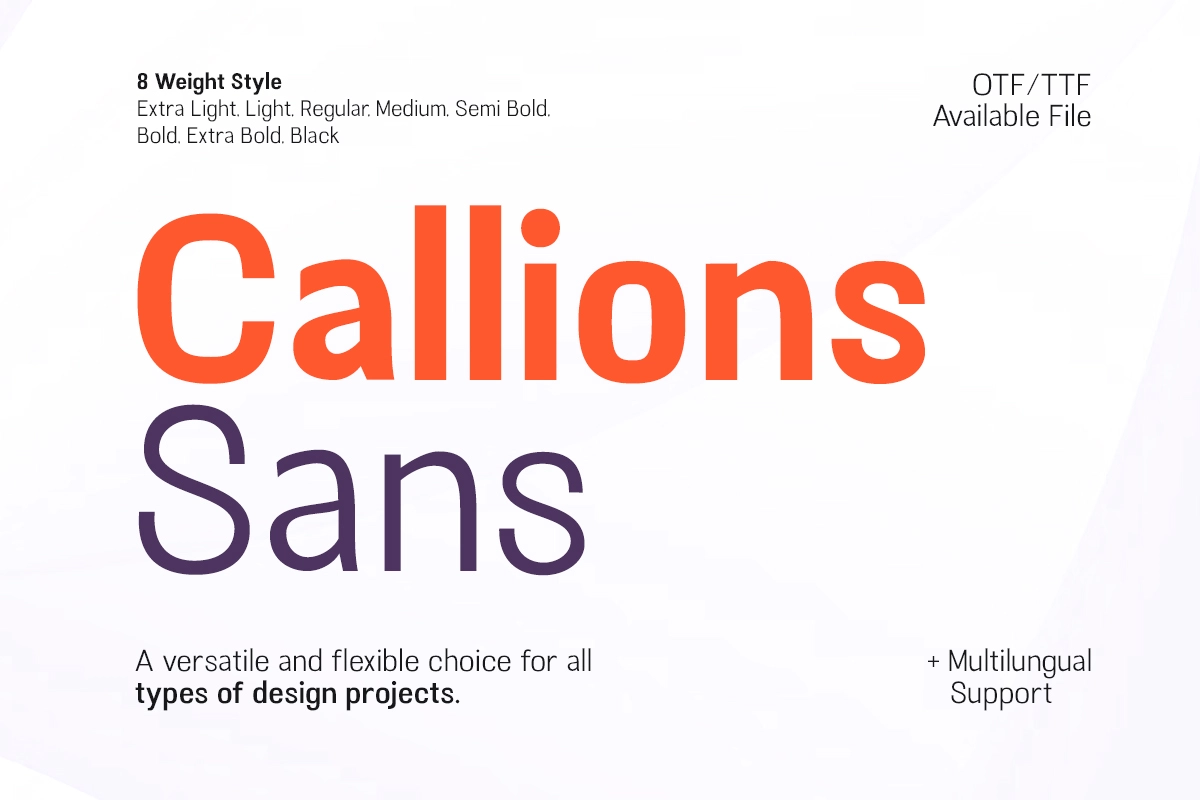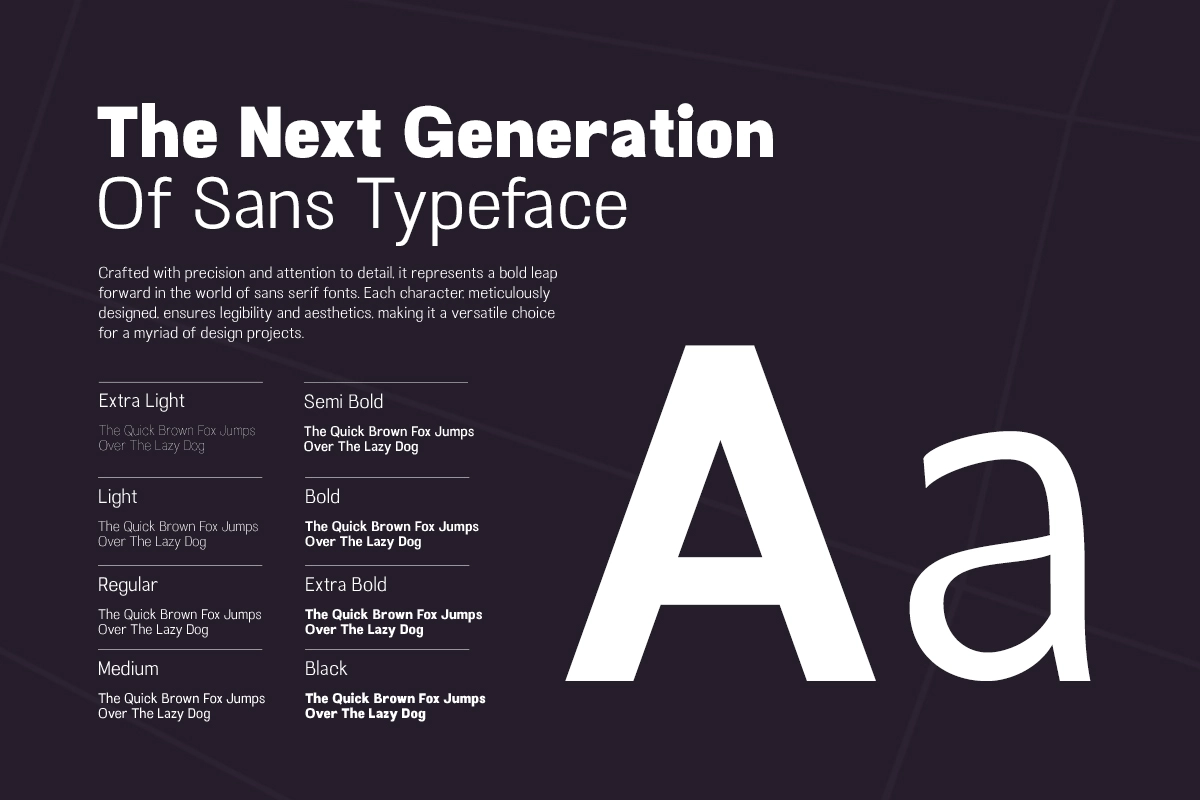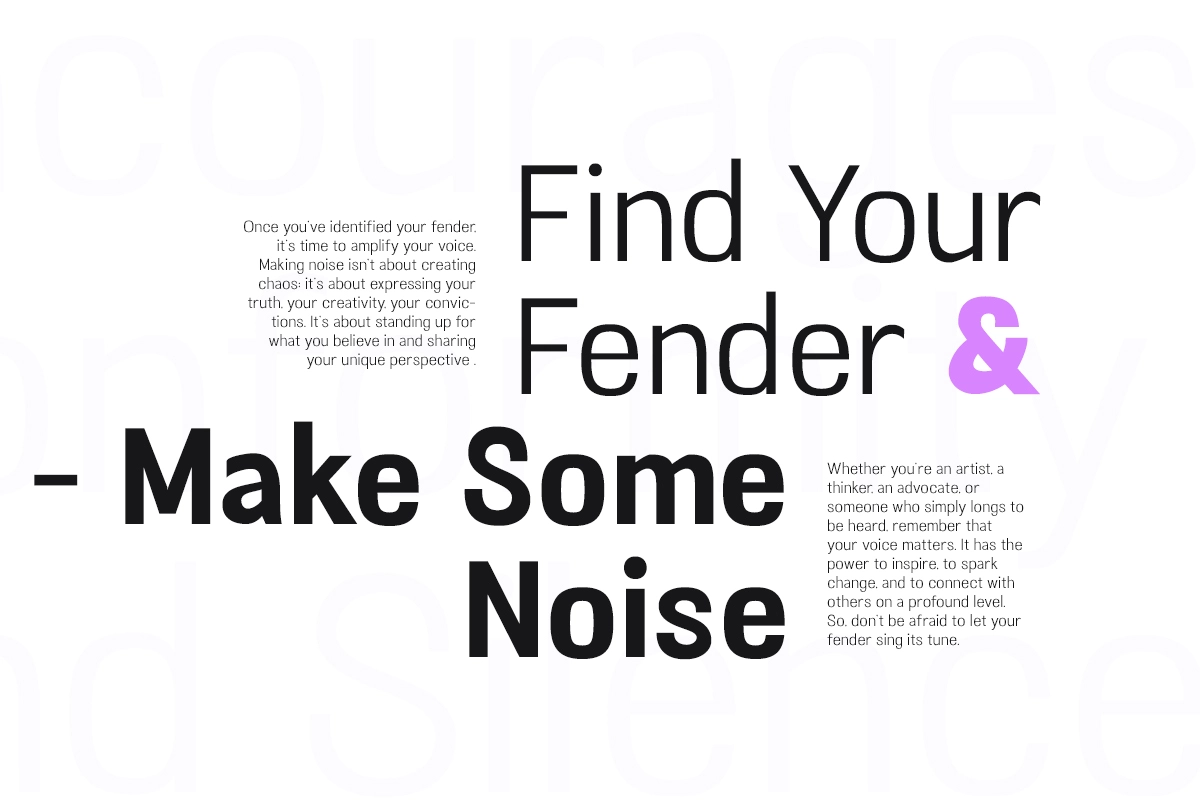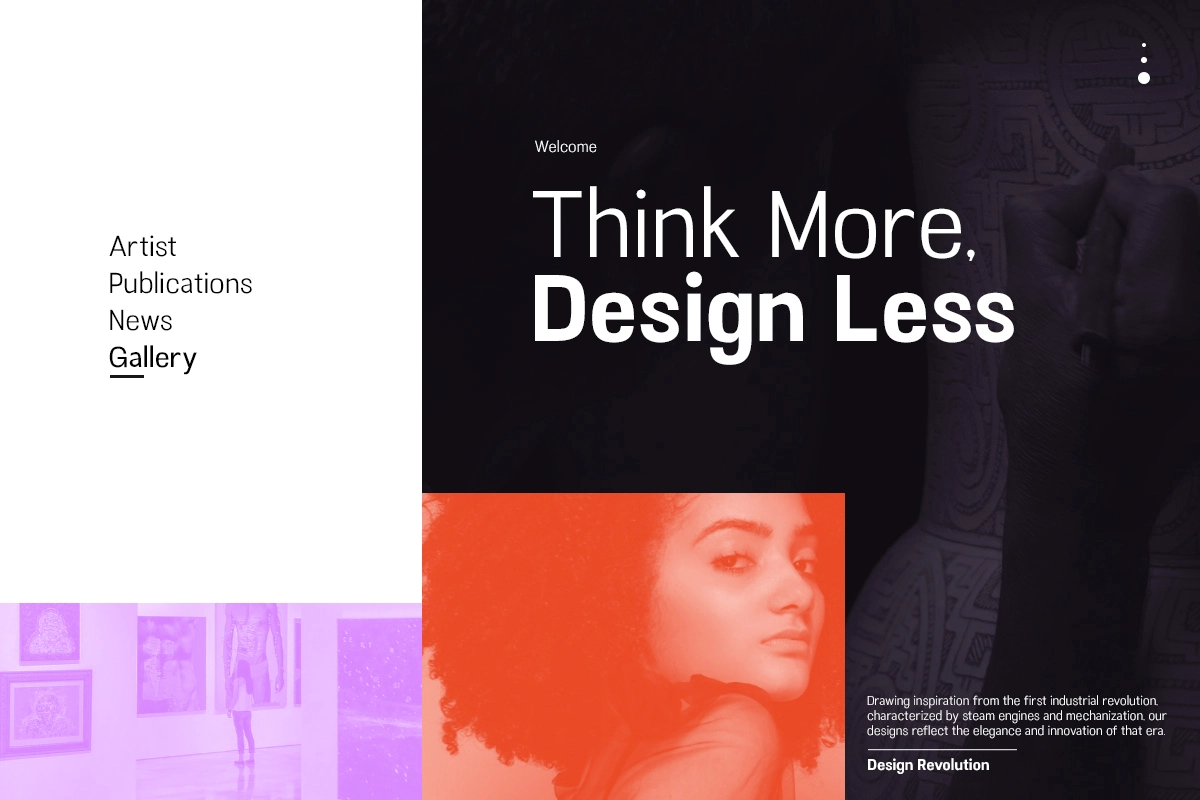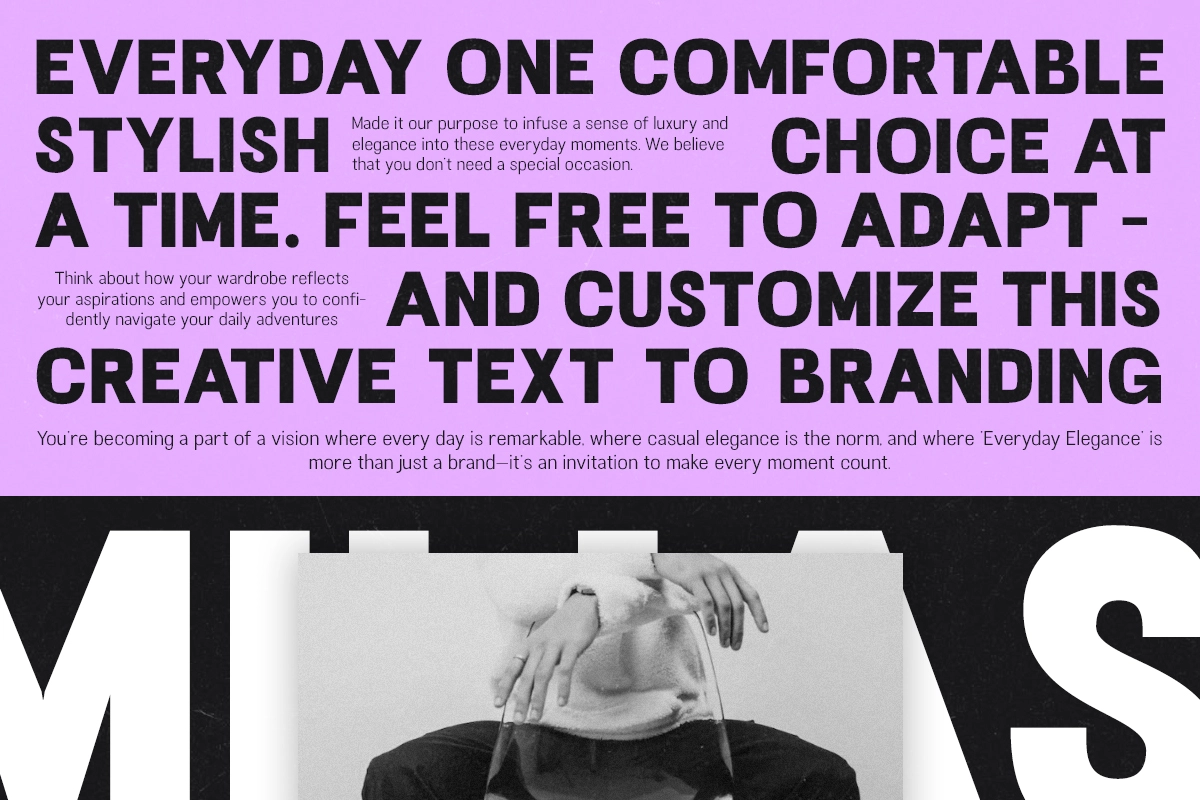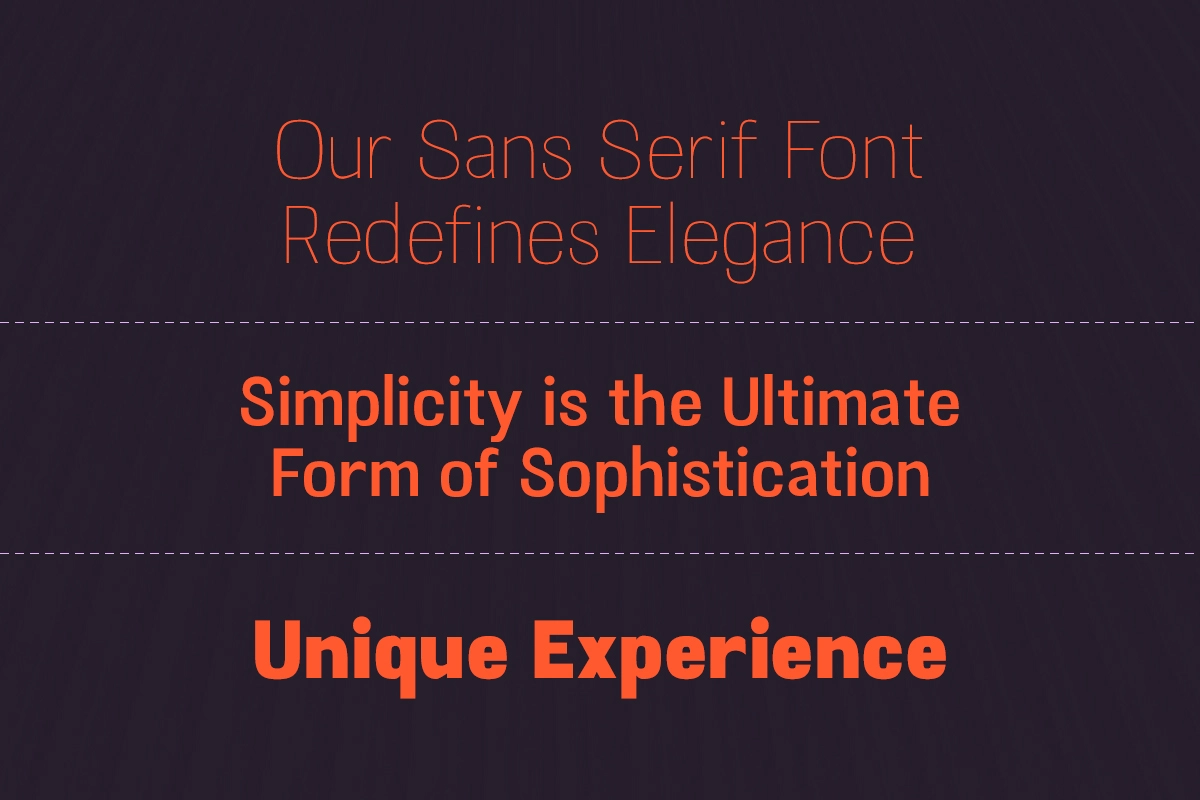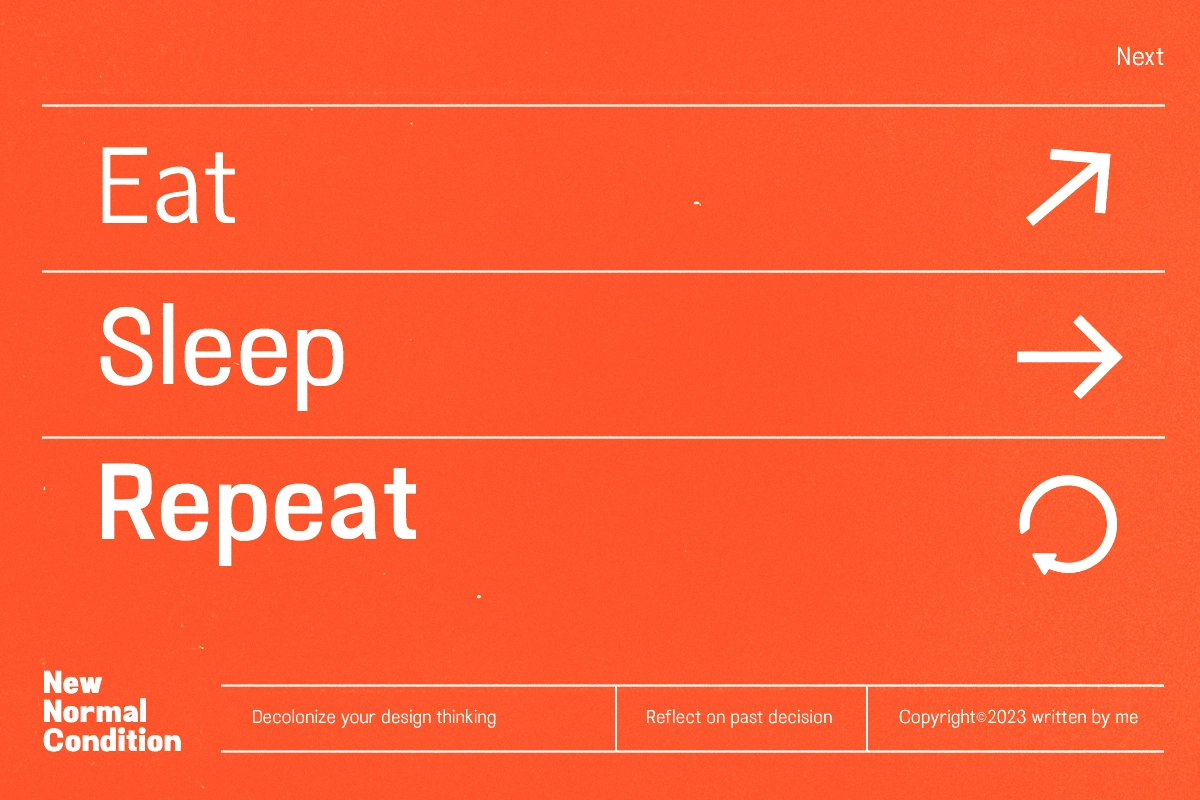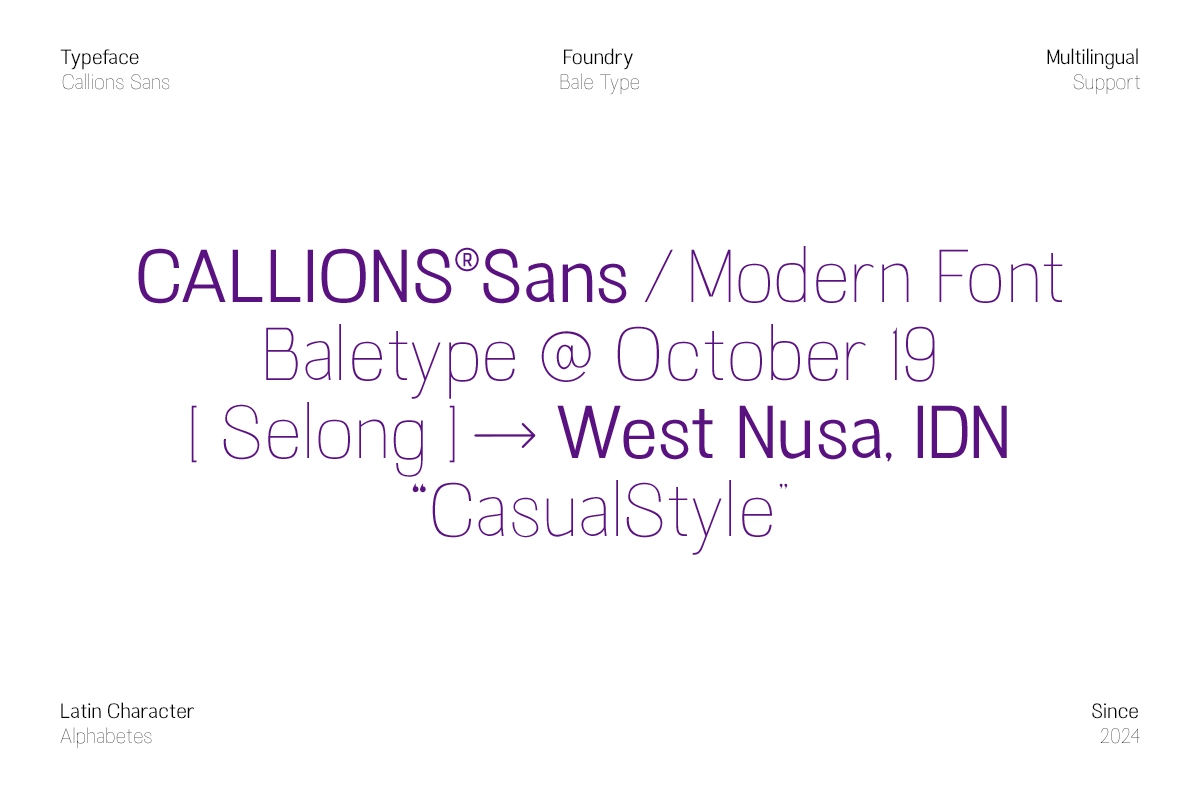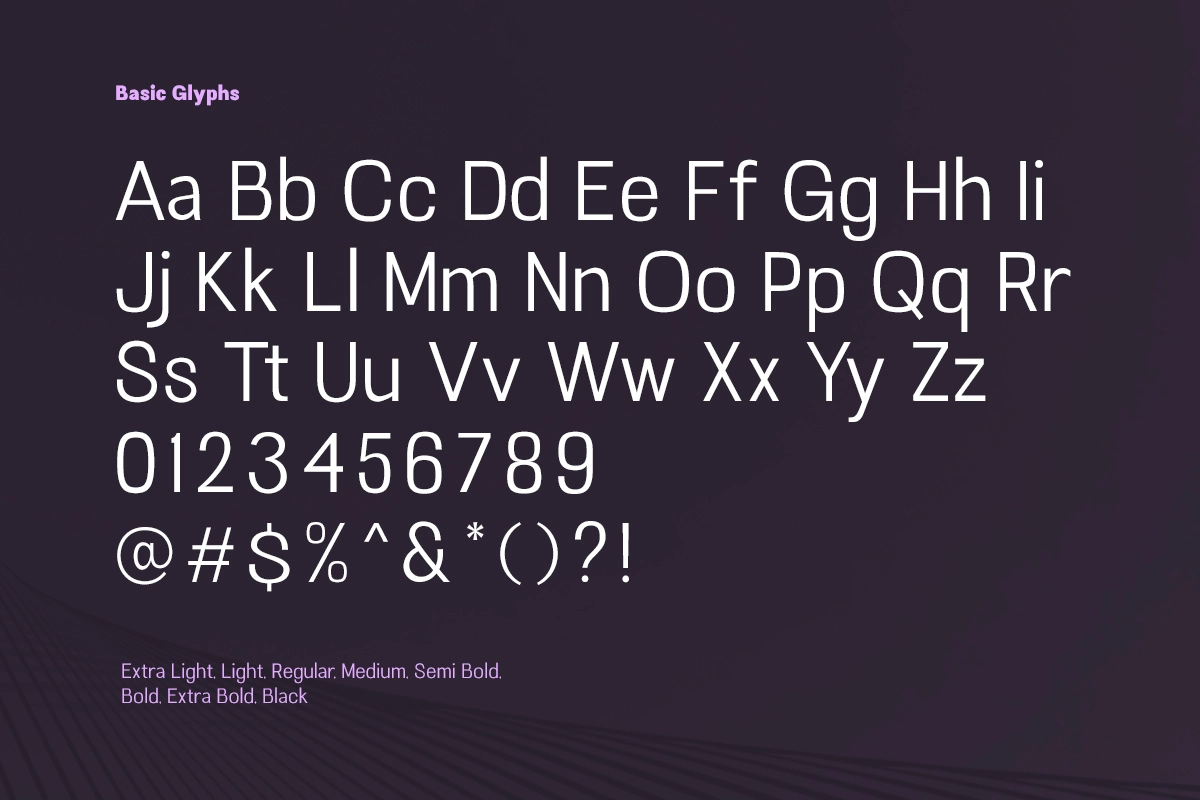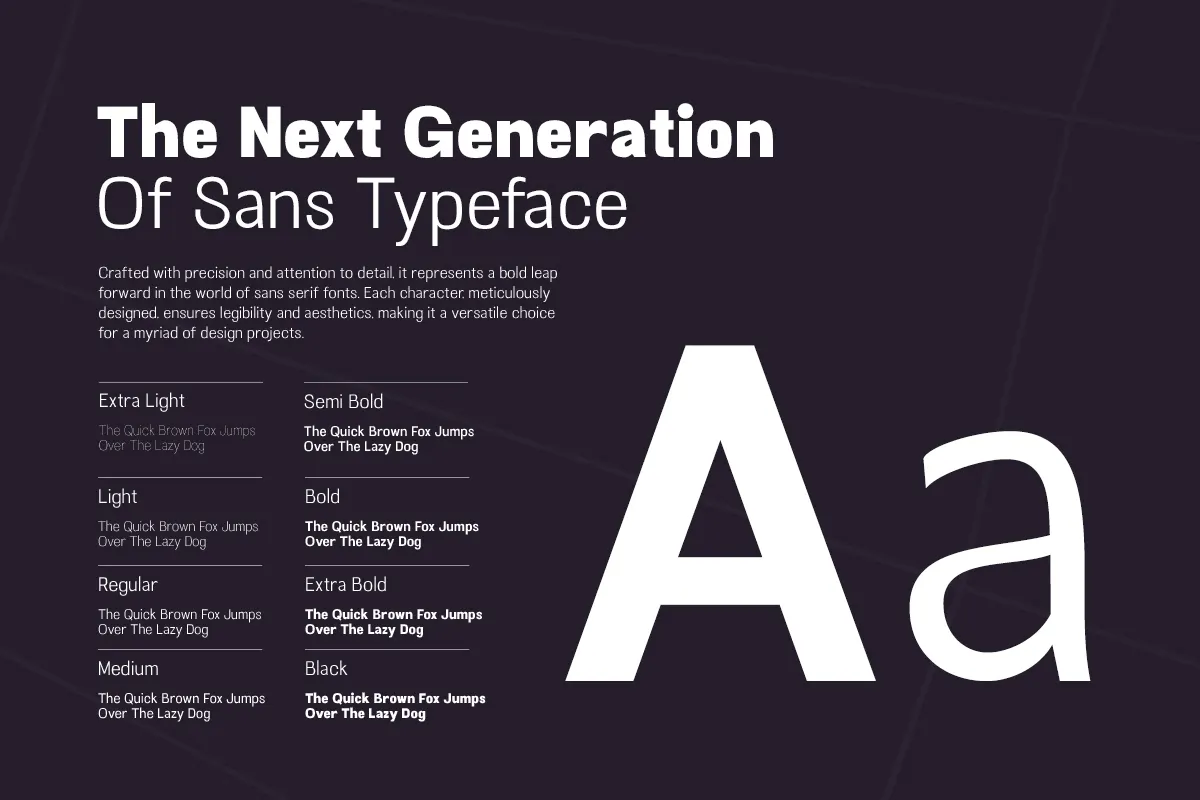
Callions - Modern Sans Serif Font Family
The font is a sans serif family with a clean, minimalist structure, open spacing, and a sharp digital rhythm. Its lighter weights are neat and airy, while the Black cut gives headlines a stronger, punchier voice without losing clarity.
Use Callions for brand identities, signage, app interfaces, website headers, quote graphics, posters, packaging, presentation titles, editorial layouts, social media posts, product labels, wayfinding systems, and more. The broad weight range makes it practical for full design systems, from small supporting text to oversized display typography.
- 8 weights: Extra Light - Black